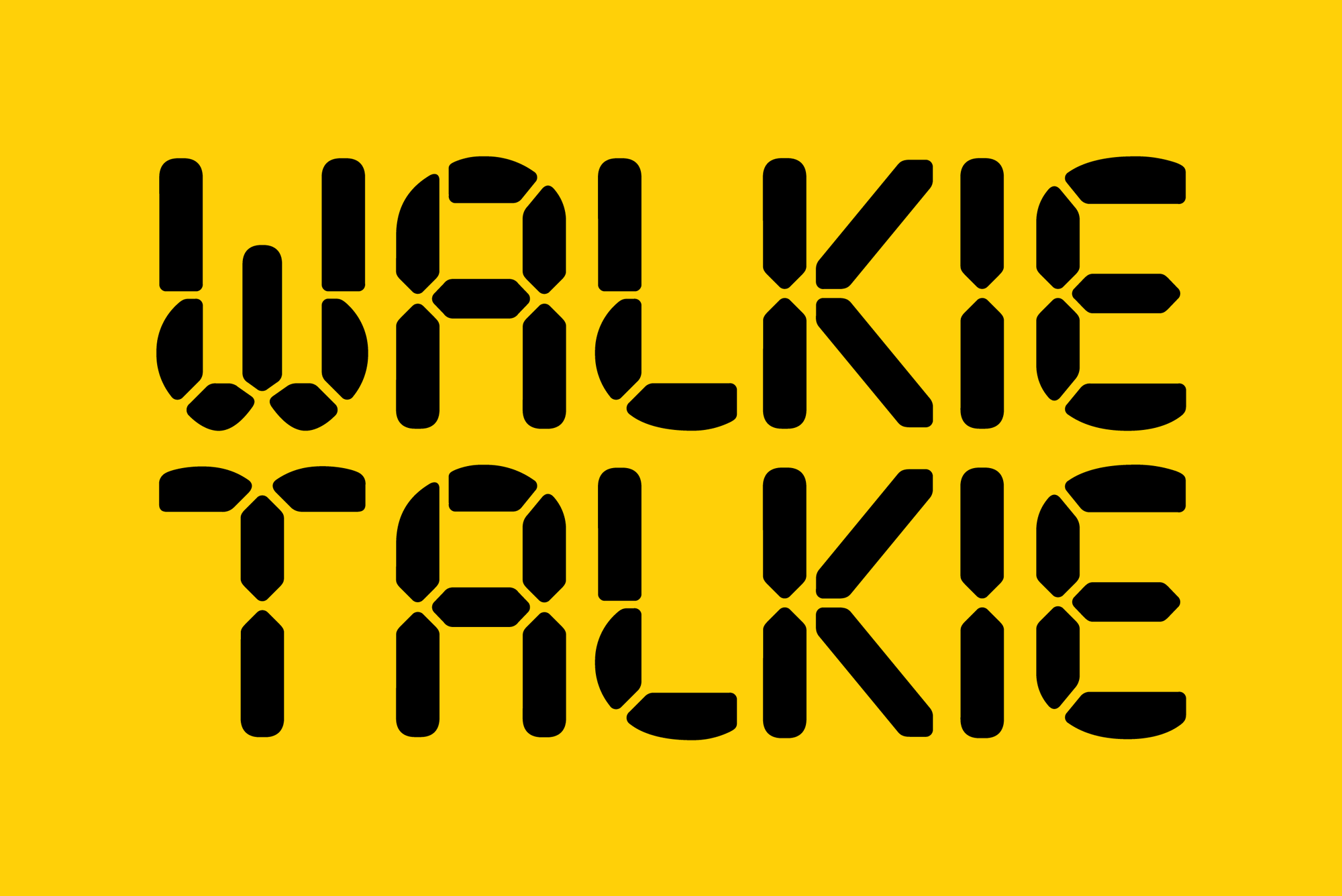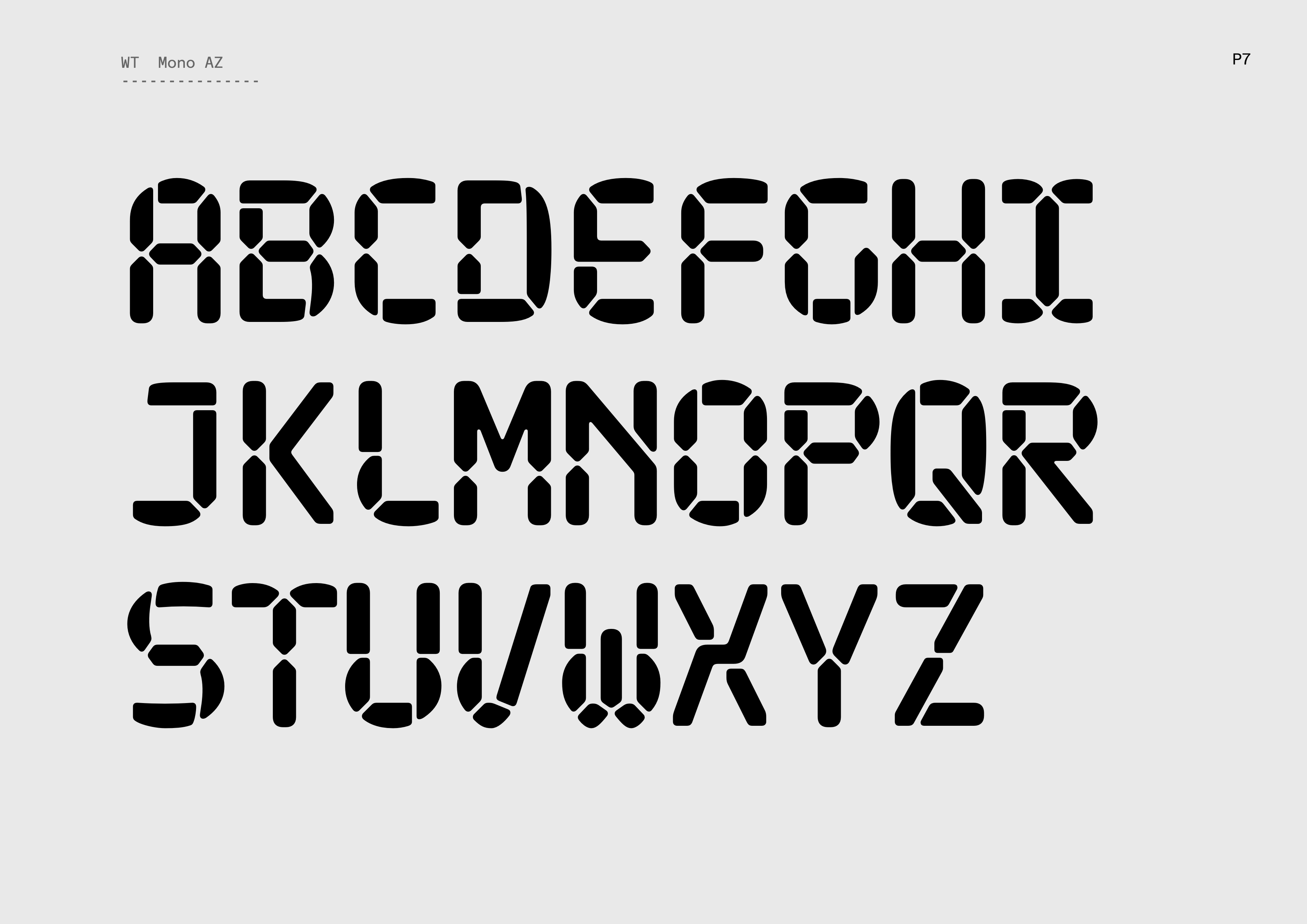
Walkie Talkie
Typeface
Walkie Talkie is the voice-based social app where people tune in to hang out. After quick growth, they needed a fresh brand to turn up the dial on what makes them special: authenticity, openness and a whole lot of spontaneity. Cutting through the noise of other social apps, we built a strategy inspired by the Third Space. A place where people come together to enjoy each other’s company, away from the pressures of home and work.
Together with Koto Studio we imagine an animated variable font referencing LCD clock displays. The iconic segmented figures were the starting point of a typeface that grew into a full alphabet and even a set of smiley and icons drawn using the same segments. The font, from its main use on the dial display allowing to switch between channels in the Walkie Talkie app, became the main titling font of the brand, carrying their slightly retro identity effortlessly.
Custom Typeface